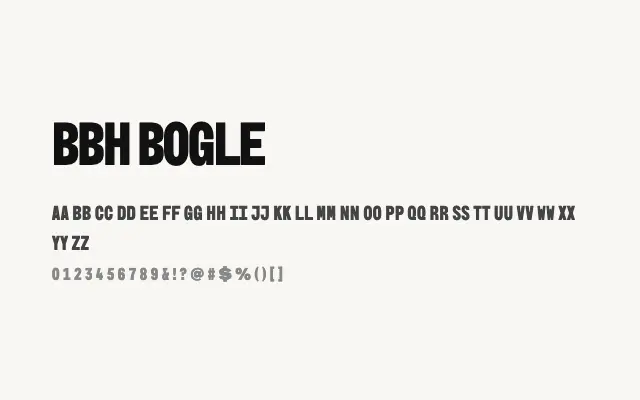
BBH Bogle
A humanist sans from the BBH stable with a warmer character than its geometric siblings.
BBH Bogle introduces a degree of human warmth into what is otherwise a clean, modern sans, making it feel approachable without sacrificing professionalism. Its proportions lend themselves well to branding work and editorial headlines where a touch of personality is welcome. The single-weight offering limits its versatility in extended typographic systems.
BBH Bogle displays humanist influences with slightly warmer, more organic letterforms than strict geometric constructions. It sits comfortably in branding and editorial contexts at a range of sizes.